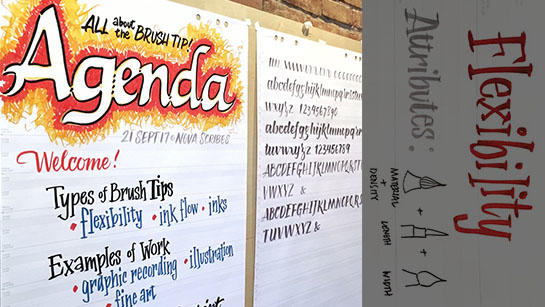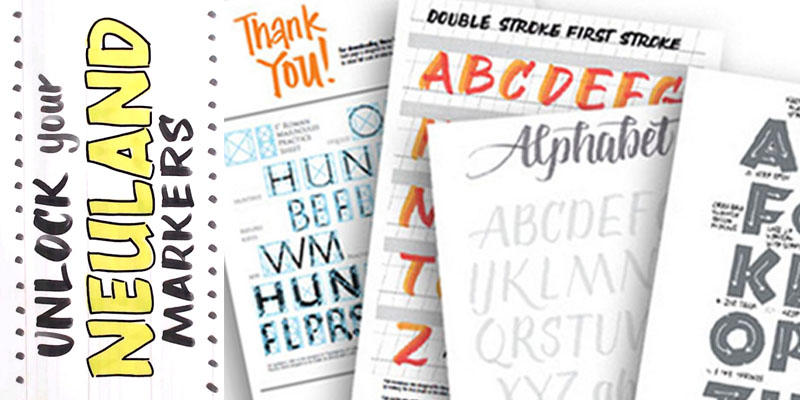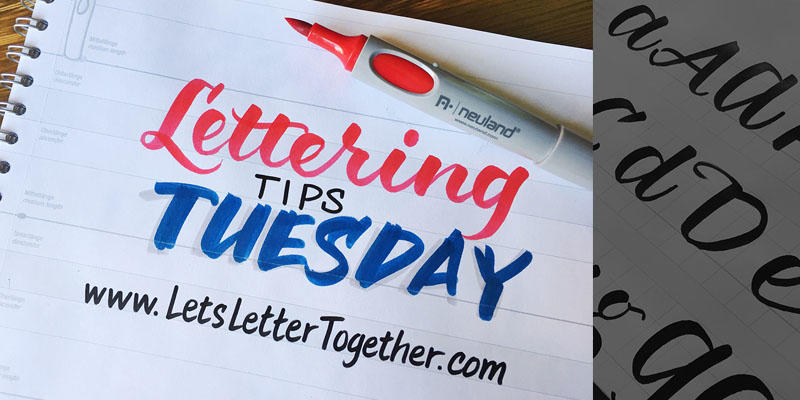
Grab your markers and join me every Tuesday as we work our way through the alphabet, numbers and punctuation using 4 different Neuland Markers to create 4 different lettering styles. Each month I add a bonus video that is practical or fun—like scary Halloween lettering, addressing envelopes for the holidays, or making flourishes for Valentine's Day.
Want to learn all of the letters in the 4 different lettering styles at once? Designed with the visual practitioner in mind, I cover my choice Neuland marker kit and offer 4 FREE lettering videos that accompany the free exemplars available at: www.neuland.com/handlettering They are set up to print 11x17" (US) and A3 (Euro). The first 4 pages are in English, the last 4 pages are in German. Click below to sign up for the free course.
Here I share my discoveries on mixing Neuland Inks. There are two videos to get you started. You can click on the bold links below.
Hands On Inks: Odd Fashioned, Cherry Lola, Klecks on the Beach
Mischen Possible Part 2: Olathe Corn, Palisade Peach, Desert Sage, Alpine Lavender
It's All About the Brush Tip